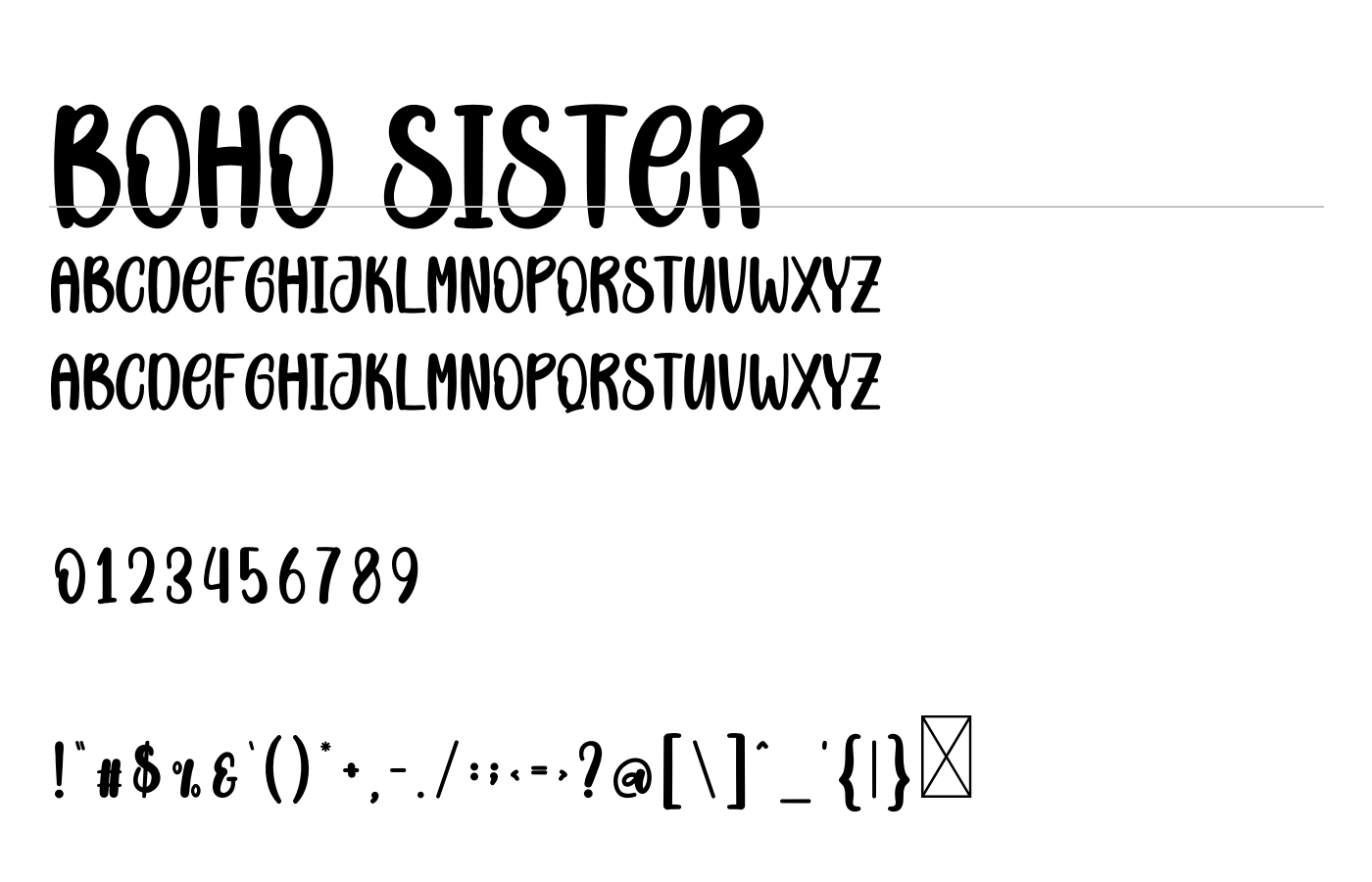
Boho Sister is a playful, hand-drawn sans serif font with a casual and friendly feel. Its tall, slightly condensed letterforms and smooth, rounded strokes create an approachable look that works well for creative, youthful branding, social media posts, and informal headlines. This font’s unique charm and legibility make it ideal for projects that want to convey warmth and personality.
Boho Sister Font
About Boho Sister Font